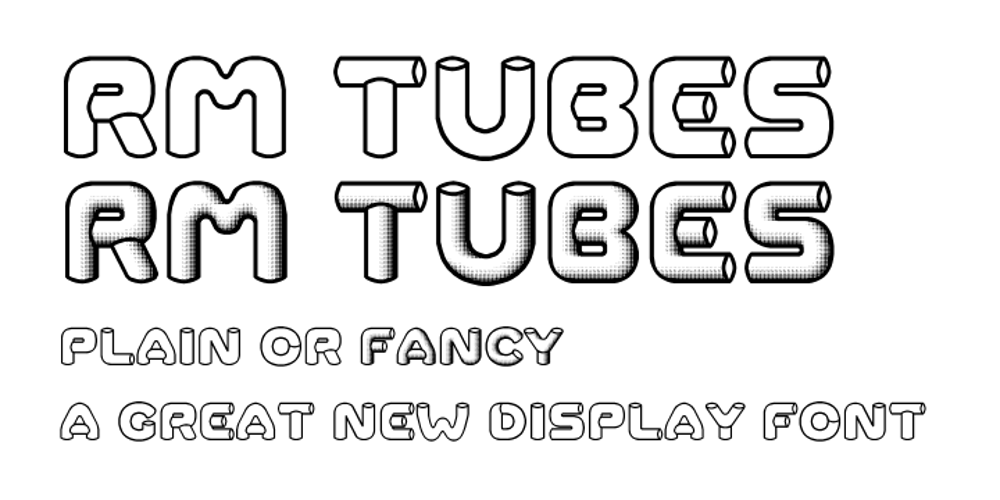
RM Tubes Font Family was designed by Ray Meadows and published by Ray Meadows. RM Tubes contains 2 styles and family package options. This is an unusual family of 3D designs that will add impact to your design. Due to the modular nature of this design there may be a very slight lack of smoothness to the curves at extremely large point sizes (around 100 pt and above).